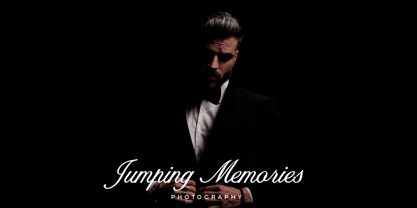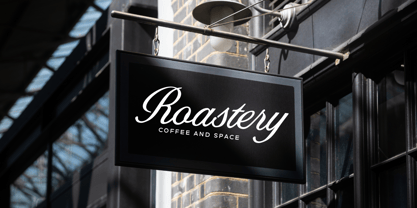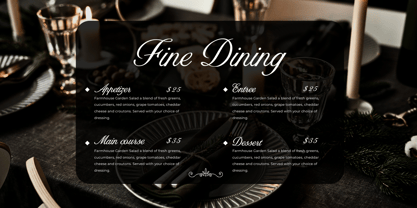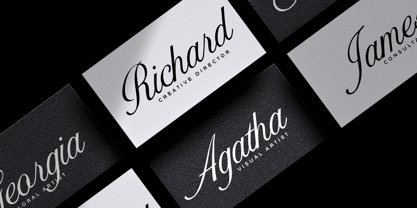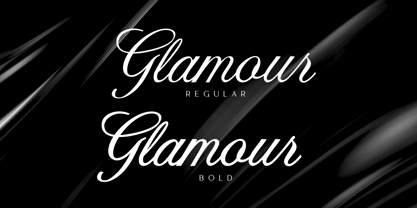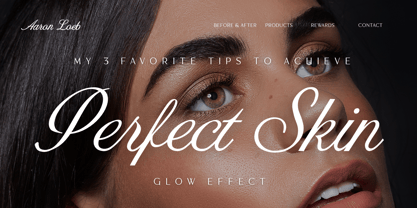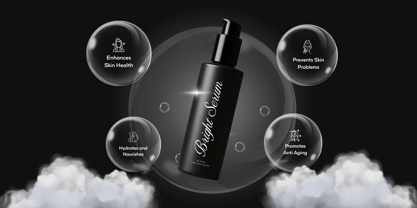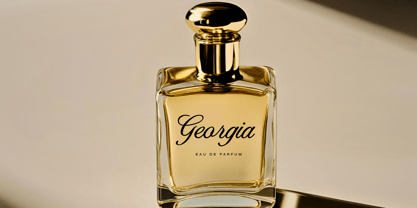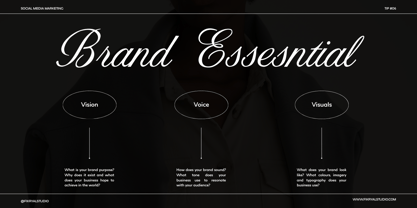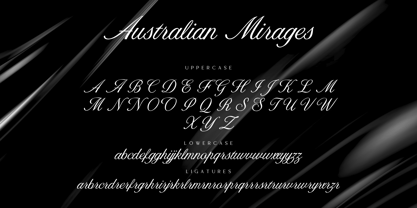
Australian Mirages
by Fikryal
The Australian Mirages Font Family was designed by Muhammad Fikry and published by Fikryal. Australian Mirages contains 2 styles and family package options. More about this family
Australian Mirages – Modern Calligraphy Font is a beautifully designed script typeface that brings elegance, grace, and a modern touch to handwritten calligraphy. With its fluid strokes and artistic curves, this font captures both classic charm and contemporary style.
The font includes two versatile weights: Regular and Bold, making it suitable for both subtle and bold typographic expressions. It also features a rich set of alternates and ligatures, giving you the creative freedom to design personalized and sophisticated typography with ease.
Font Usage :
Australian Mirages is perfect for a wide range of creative and professional applications, including:
• Wedding Invitations & Stationery
• Branding & Logo Design
• Luxury Packaging & Product Labels
• Social Media Posts & Instagram Quotes
• Greeting Cards & Thank You Notes
• Website Headers & Blog Titles
• Beauty & Fashion Branding
• Handwritten-style Posters & Merchandise
Its modern calligraphy style makes it especially suitable for projects that need a romantic, personal, or high-end aesthetic.
Designers: Muhammad Fikry
Foundry: Fikryal